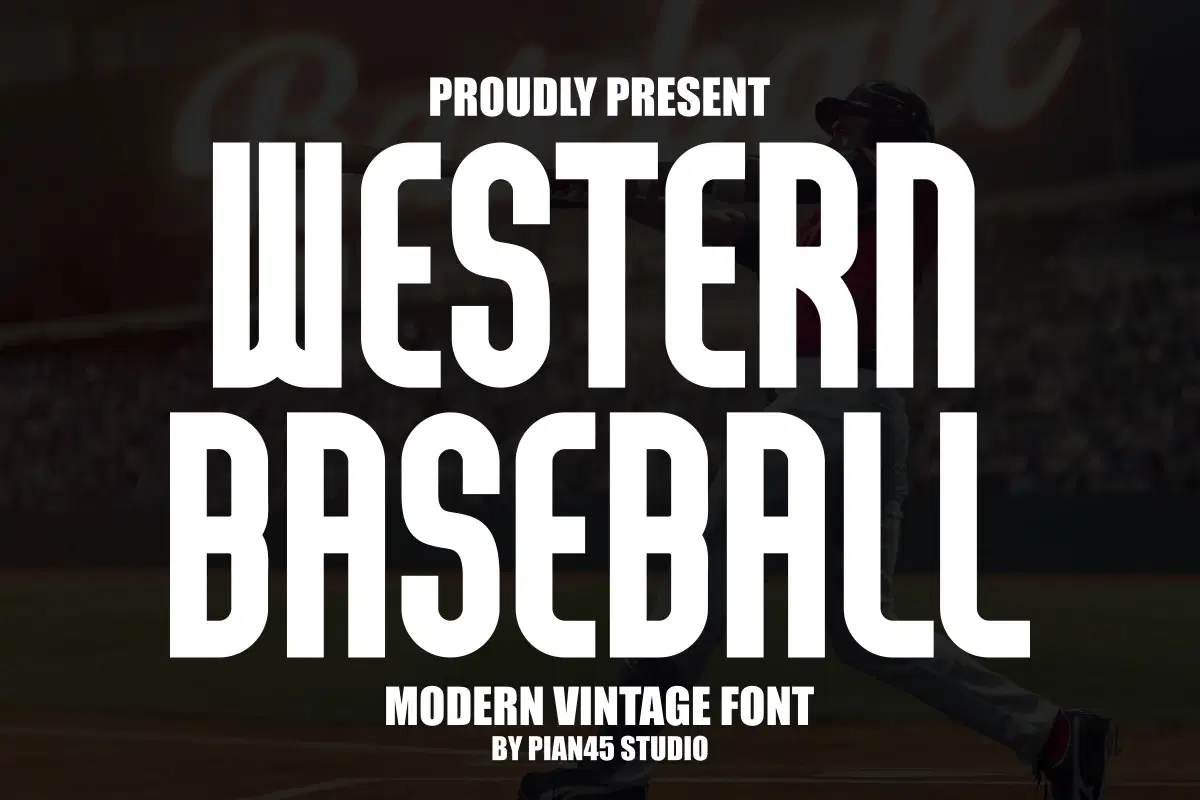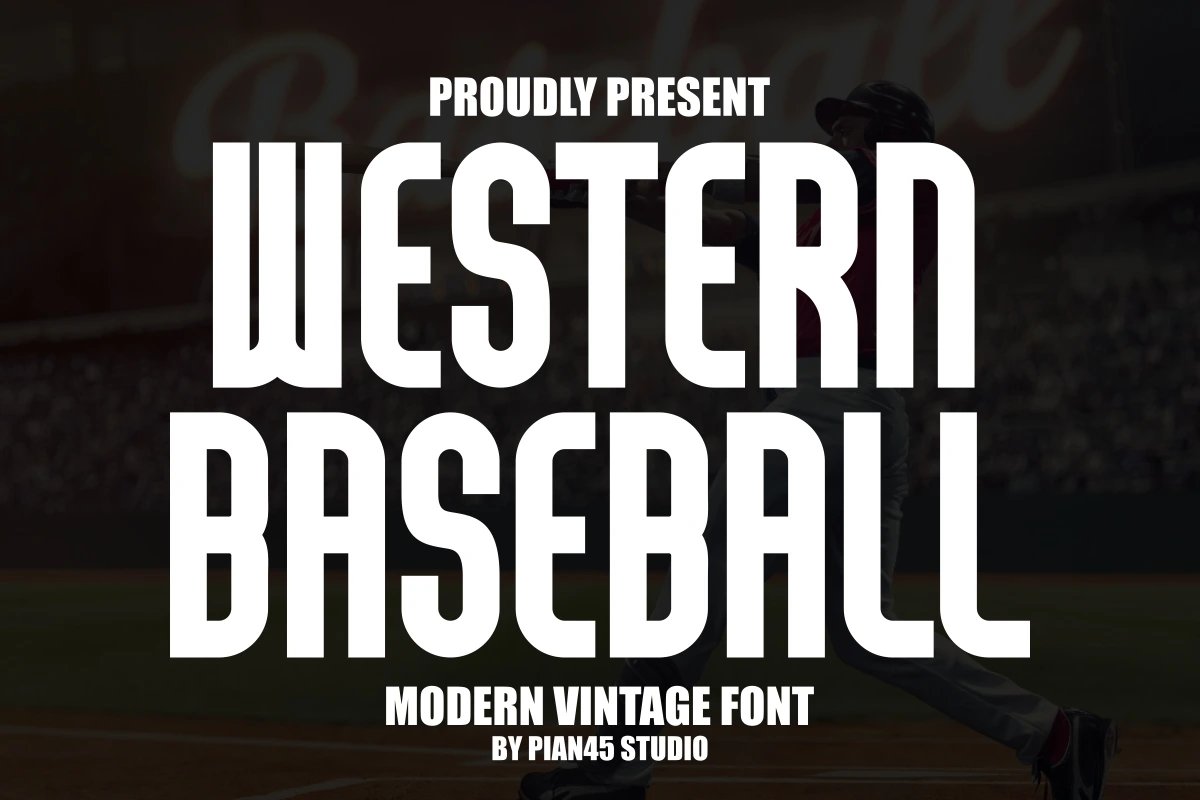
Western Baseball - Modern Vintage Font
Step up to the plate with Western Baseball! ⚾️ This Modern Vintage Font is an ultra-bold display typeface that perfectly blends the spirit of the Wild West with classic collegiate and baseball aesthetics. Its clean, commanding lines make it ideal for sports graphics, team jerseys, logo design, and any design needing a rugged, yet professional athletic look. Use this powerful all-caps font to create vintage apparel and high-impact headlines!